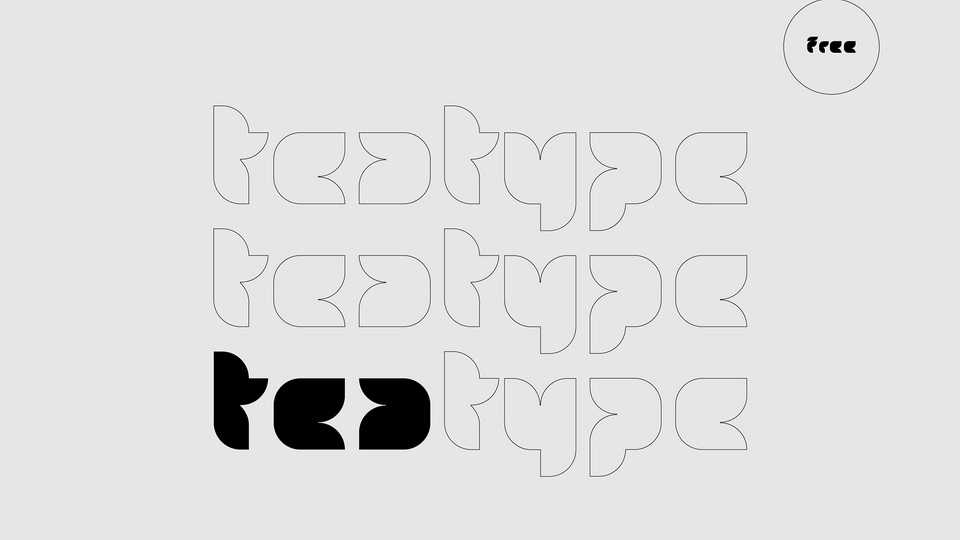
Download Tea Type font, a display typeface that makes a bold statement with its ultra-fat, modular, and geometric design. Tea Type font is a powerhouse of visual impact, featuring thick strokes and precisely defined shapes that create a commanding presence on the page.